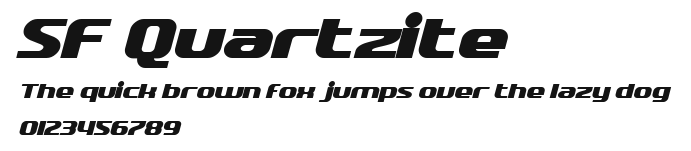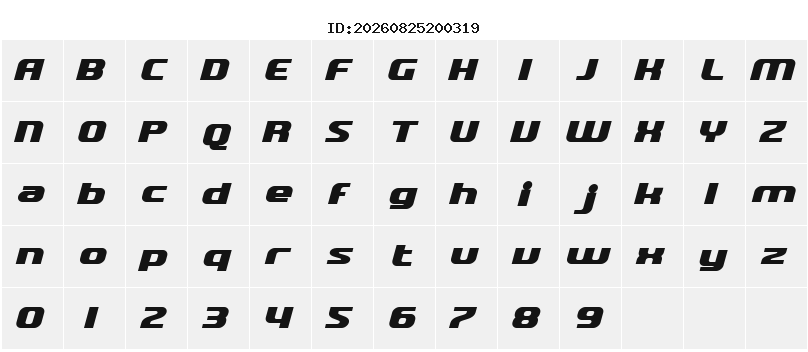
SF Quartzite Preview
• Font Name: SF Quartzite
• Font ID: SF Quartzite Bold Italic
• Full Font Name: SF Quartzite Bold Italic
• PostScript Name: SFQuartziteBoldItalic
• Character Count: 187
About SF Quartzite.ttf
SF Quartzite.ttf is a modern, elegant sans-serif font designed for ultimate readability and visual harmony. Perfect for branding, headlines, web design, and print materials.